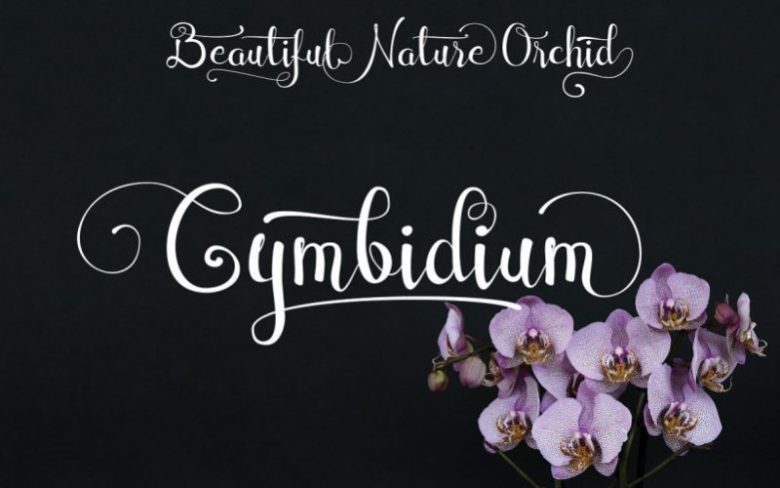
Cymbidium Calligraphy Font
Introducing cute and playful script, with natural and dynamically handmade touch. This font use two alternate each lowercase letter to avoid same letter in a pair, and sure there is hundreds swashy character to make your text so pretty like orchid flower!